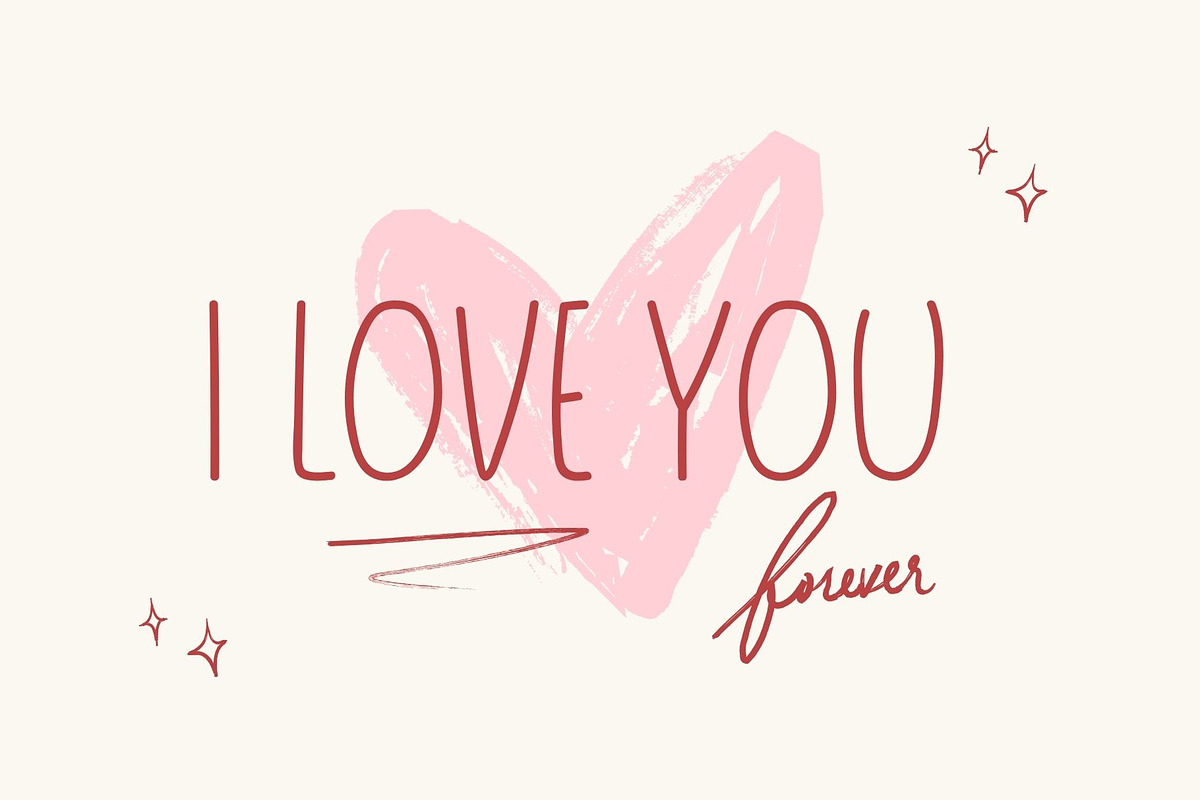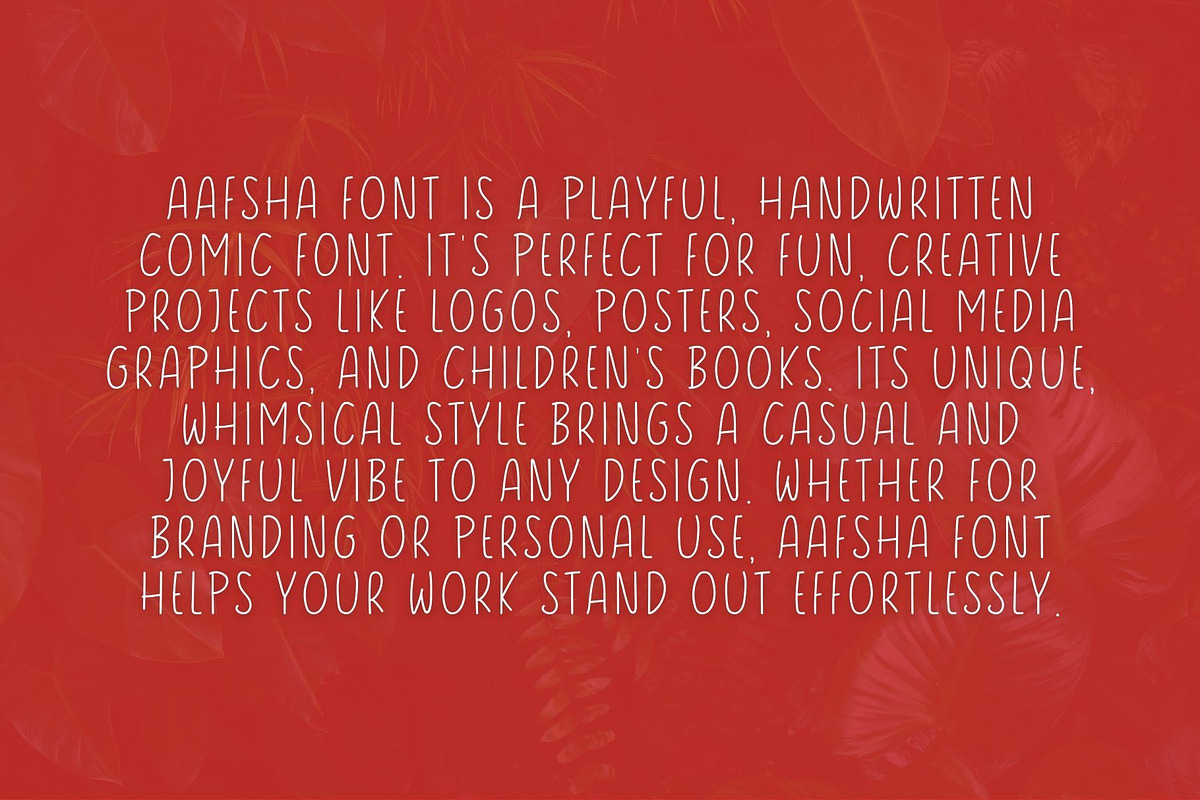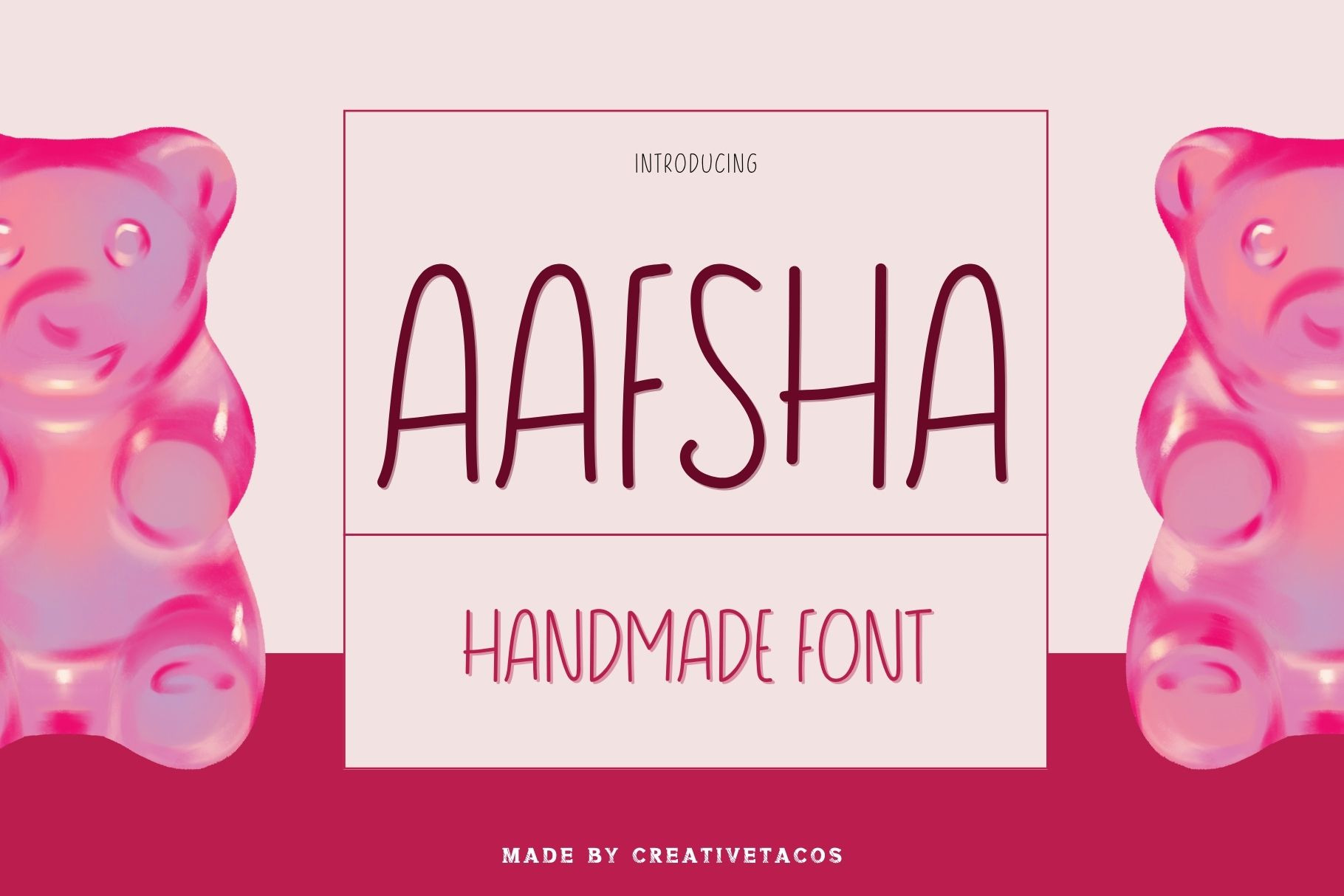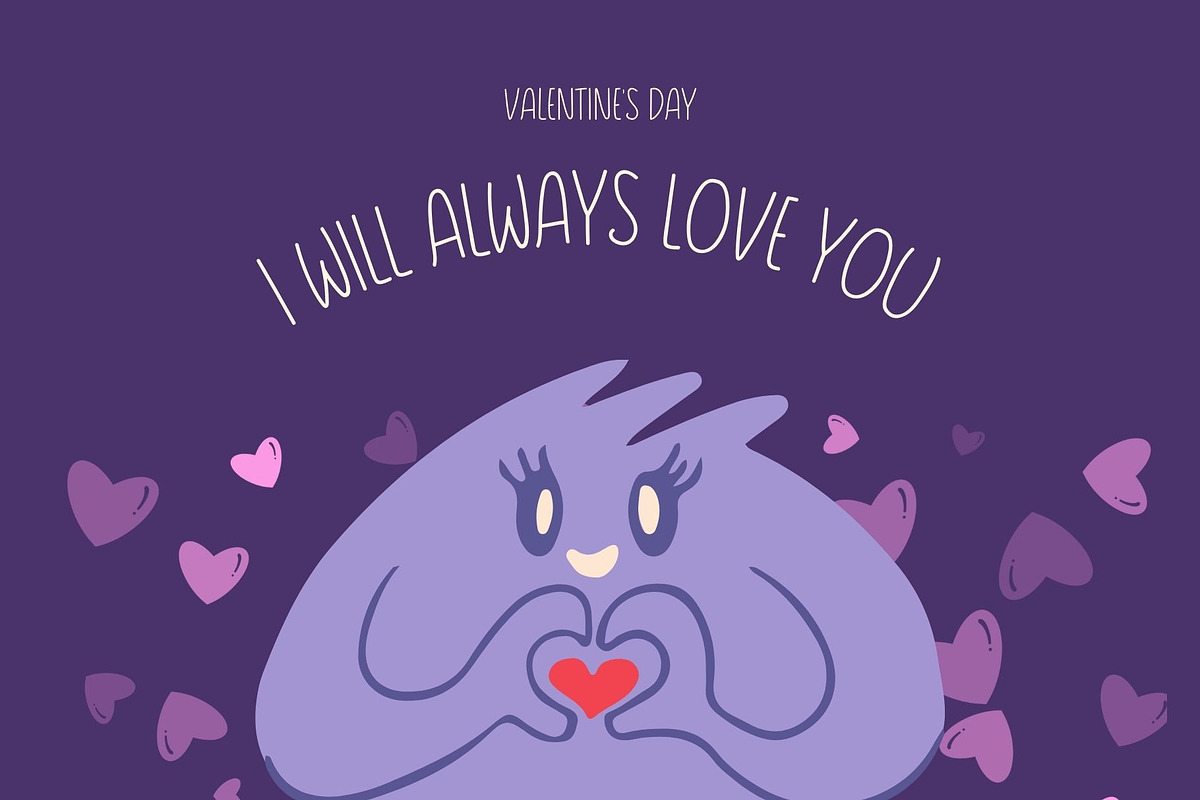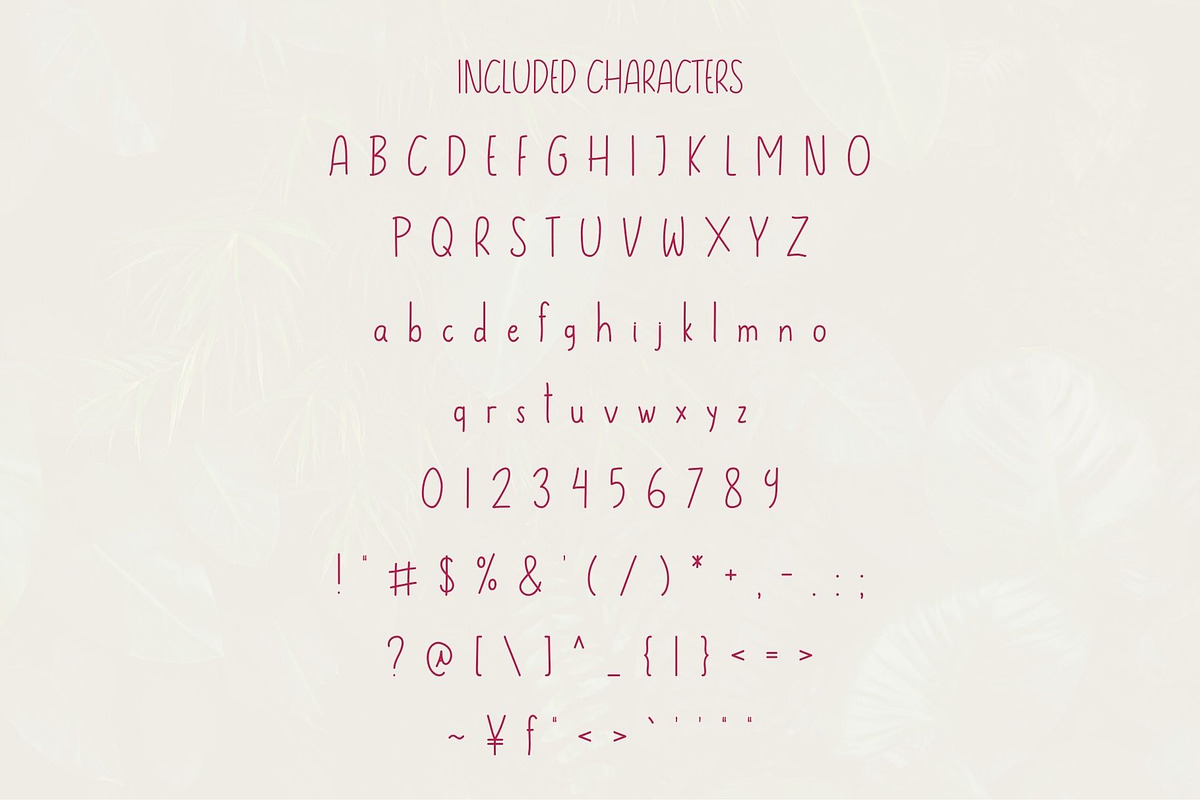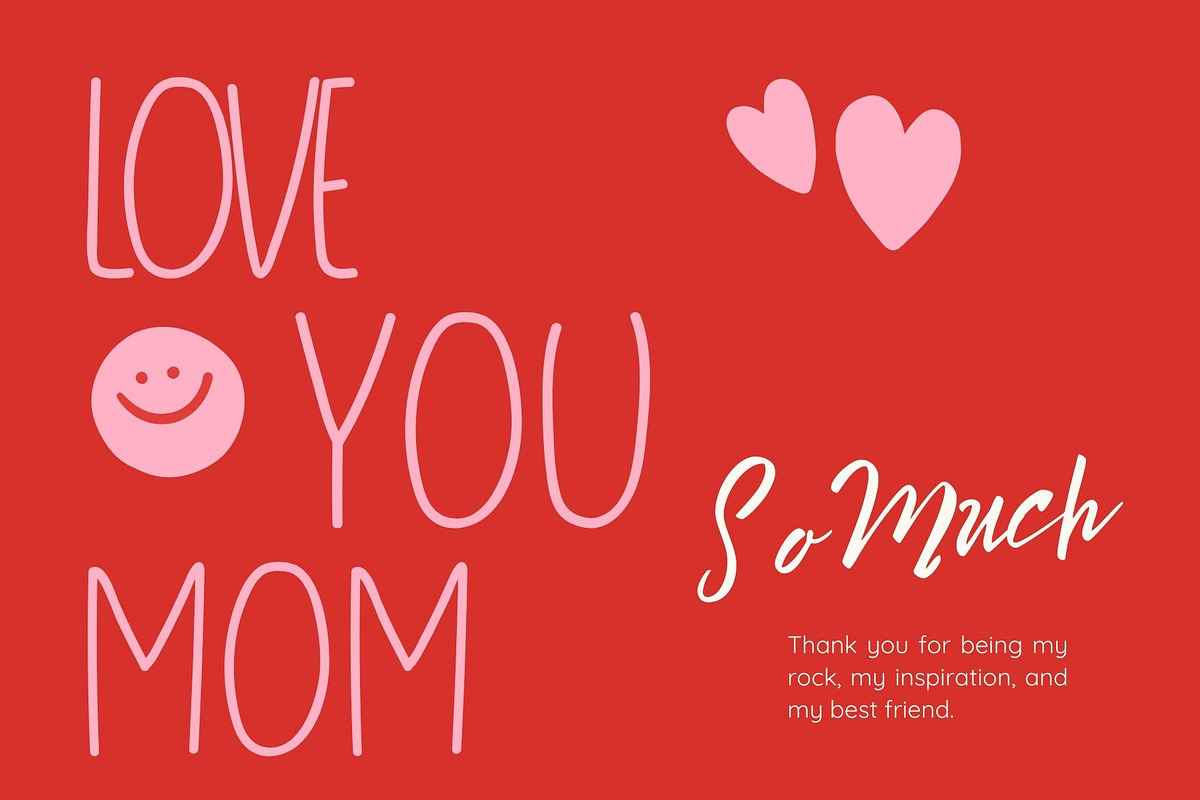
Aafsha - Handwritten Comic Font
Bring creativity to your projects with Aafsha, a fun and lively handwritten comic font. Perfect for comic books, illustrations, children's books, and playful designs, Aafsha adds charm and personality. With smooth, flowing strokes and a cheerful look, it's great for headlines, posters, and digital graphics.
Whether you're working on something humorous or light-hearted, Aafsha makes your designs stand out and feel inviting.